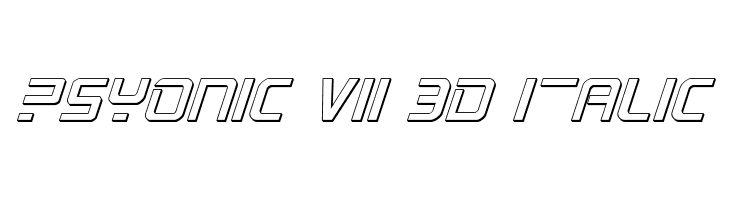
A bold, italicized font with a futuristic and dynamic design.
A futuristic, geometric font with outlined, angular letterforms.
A futuristic, geometric, and condensed font with bold lines and sharp angles.
A futuristic, geometric font with angular shapes and distinct cutouts.
A futuristic, italicized 3D font with bold, angular outlines.